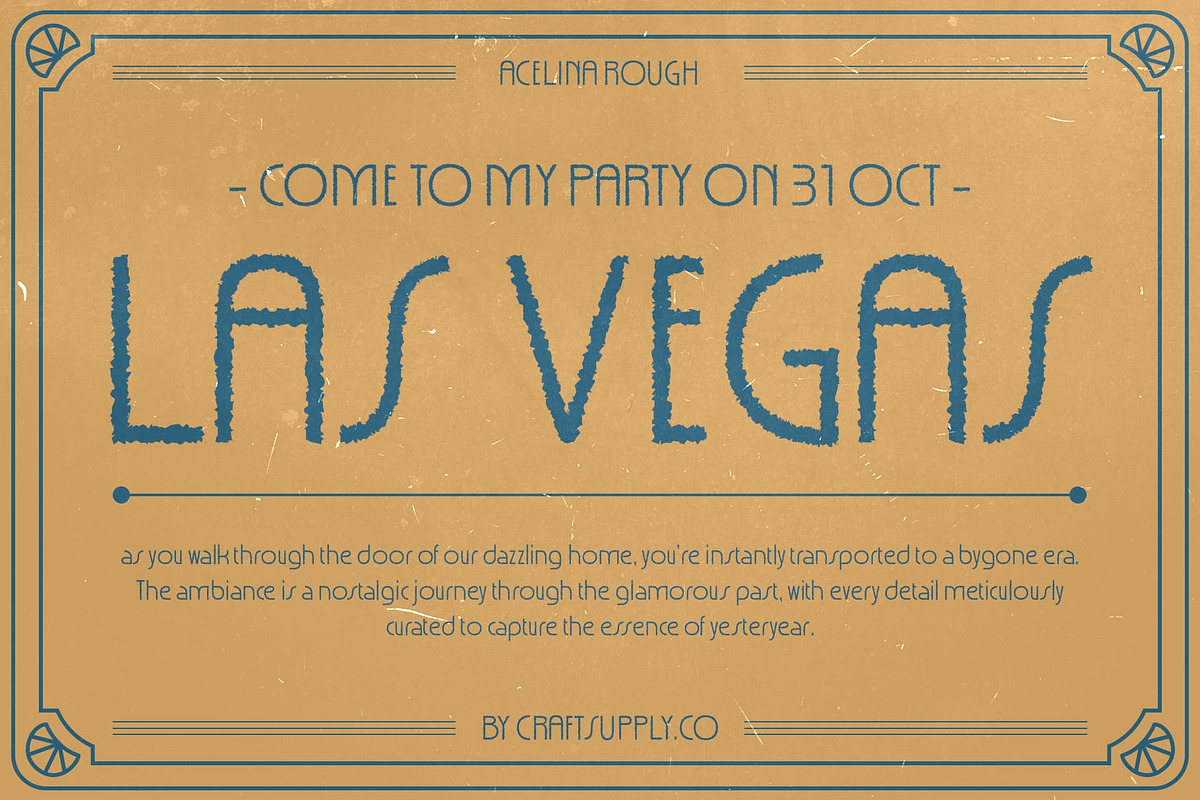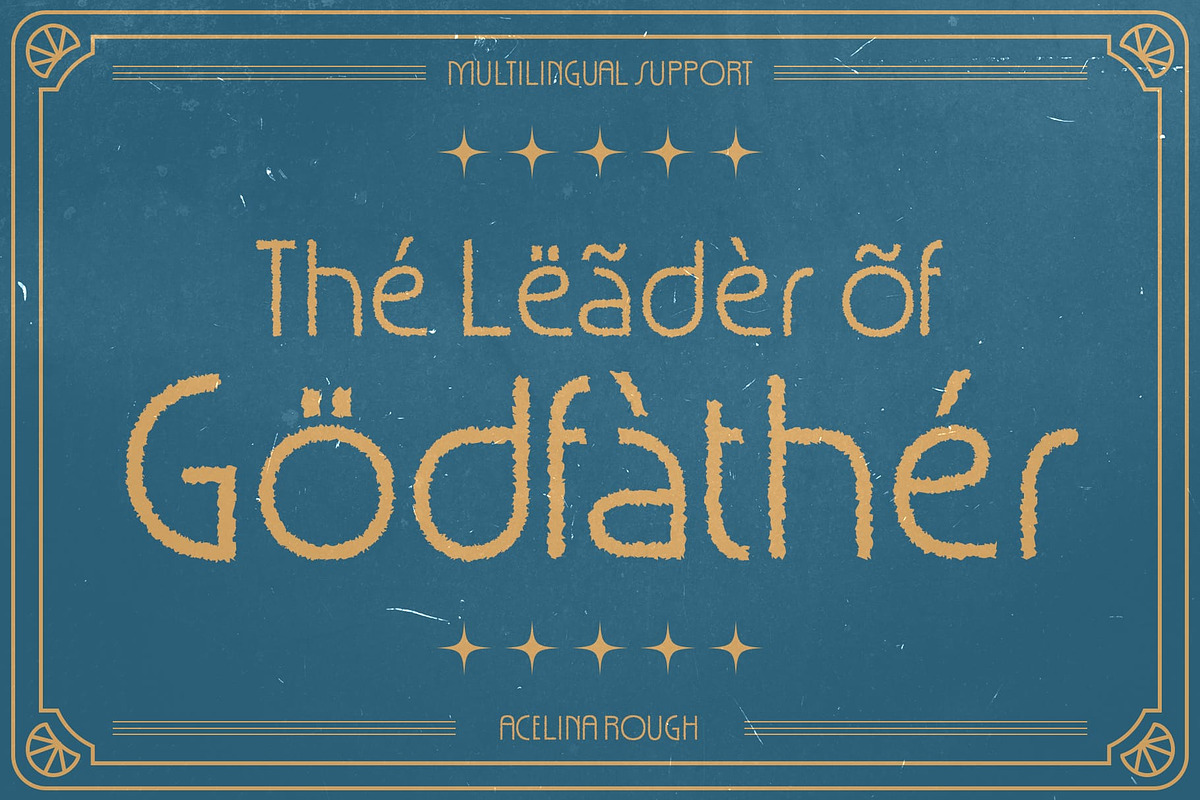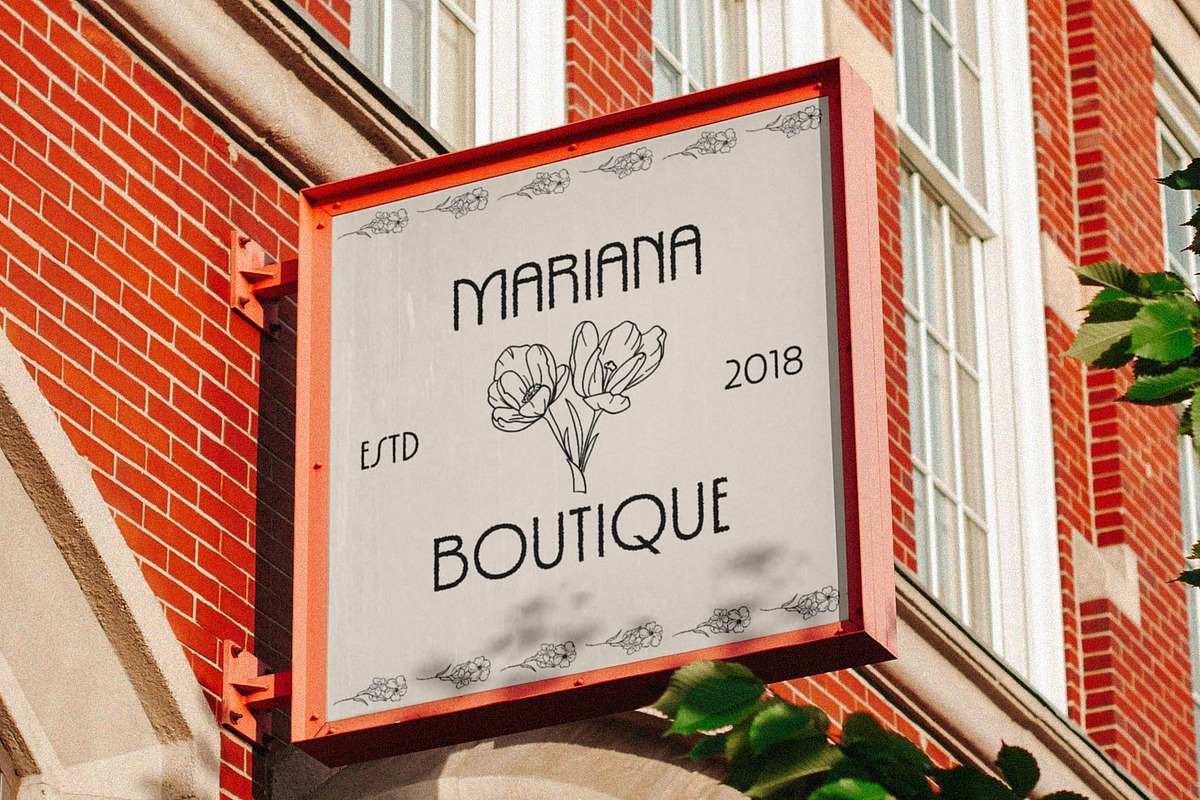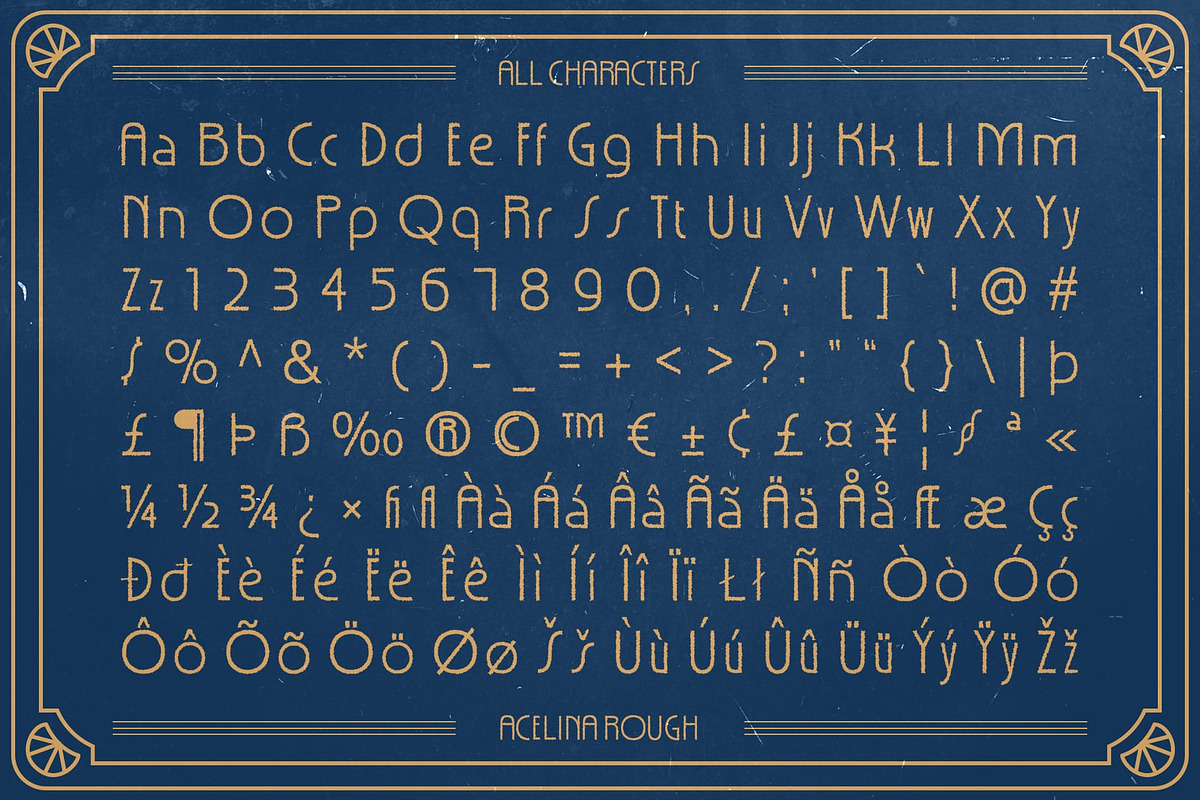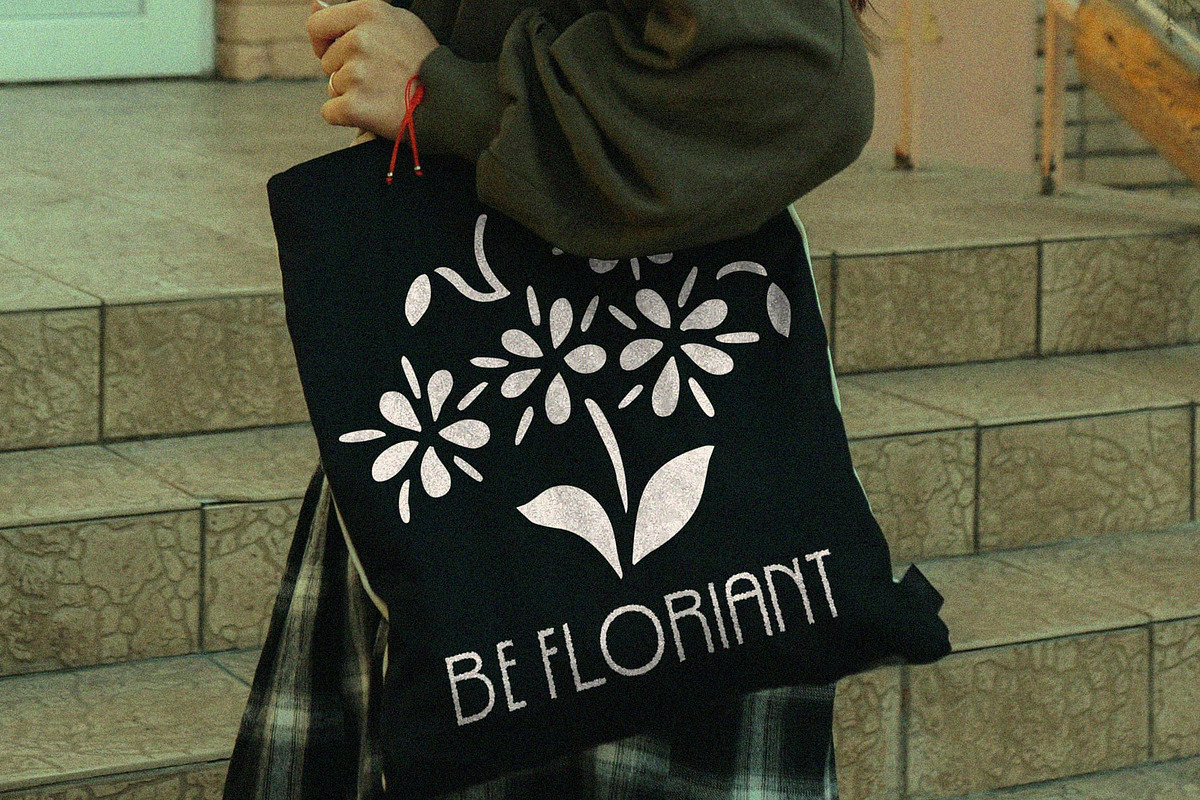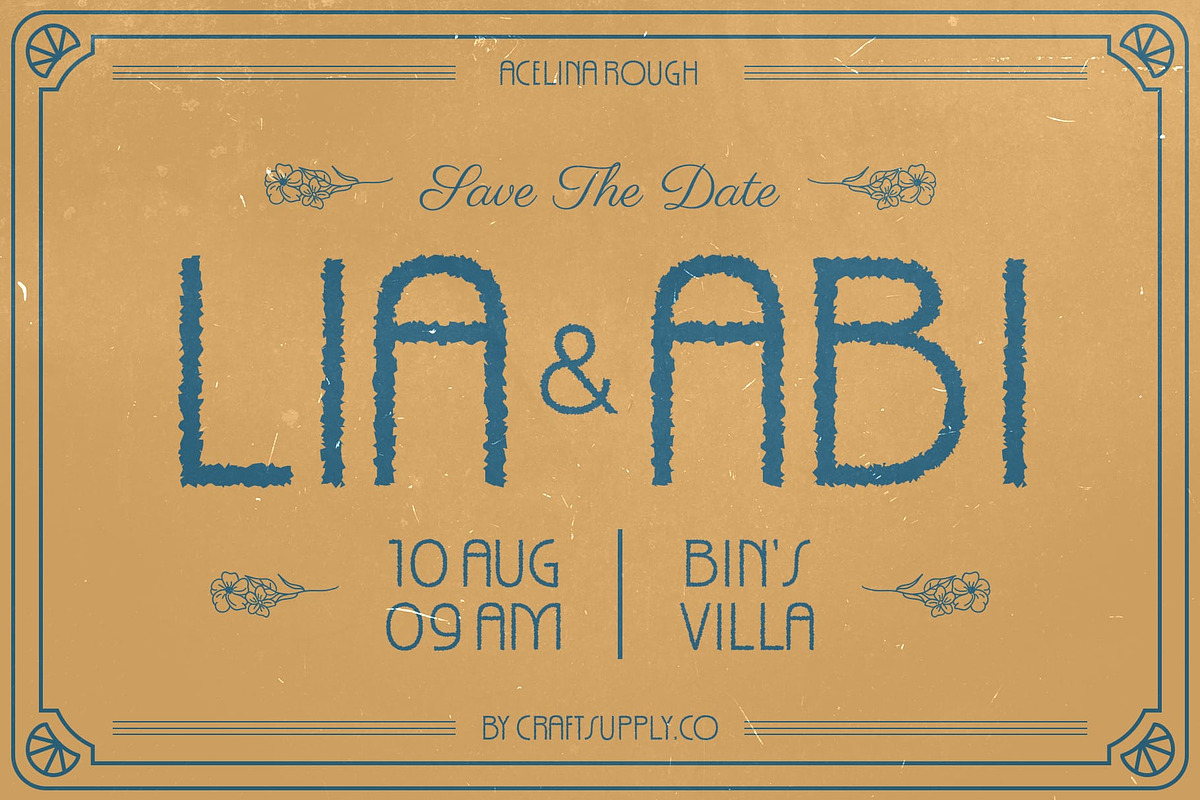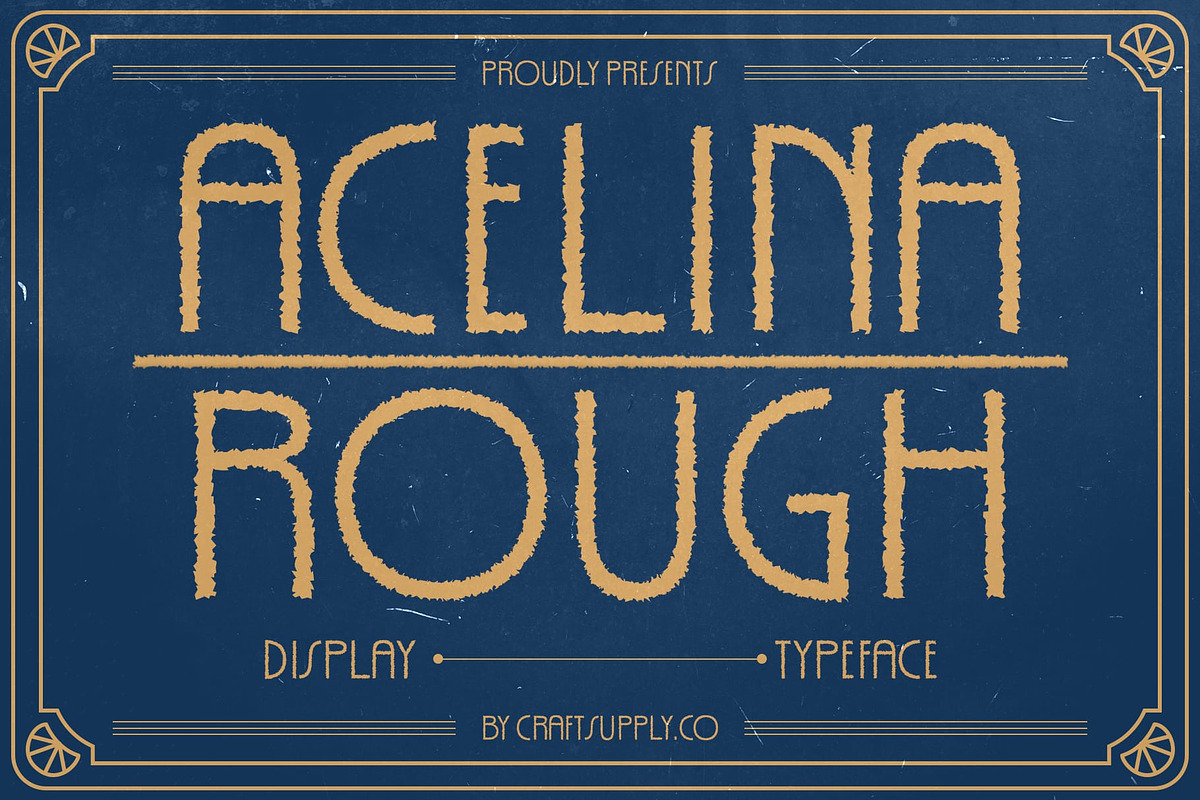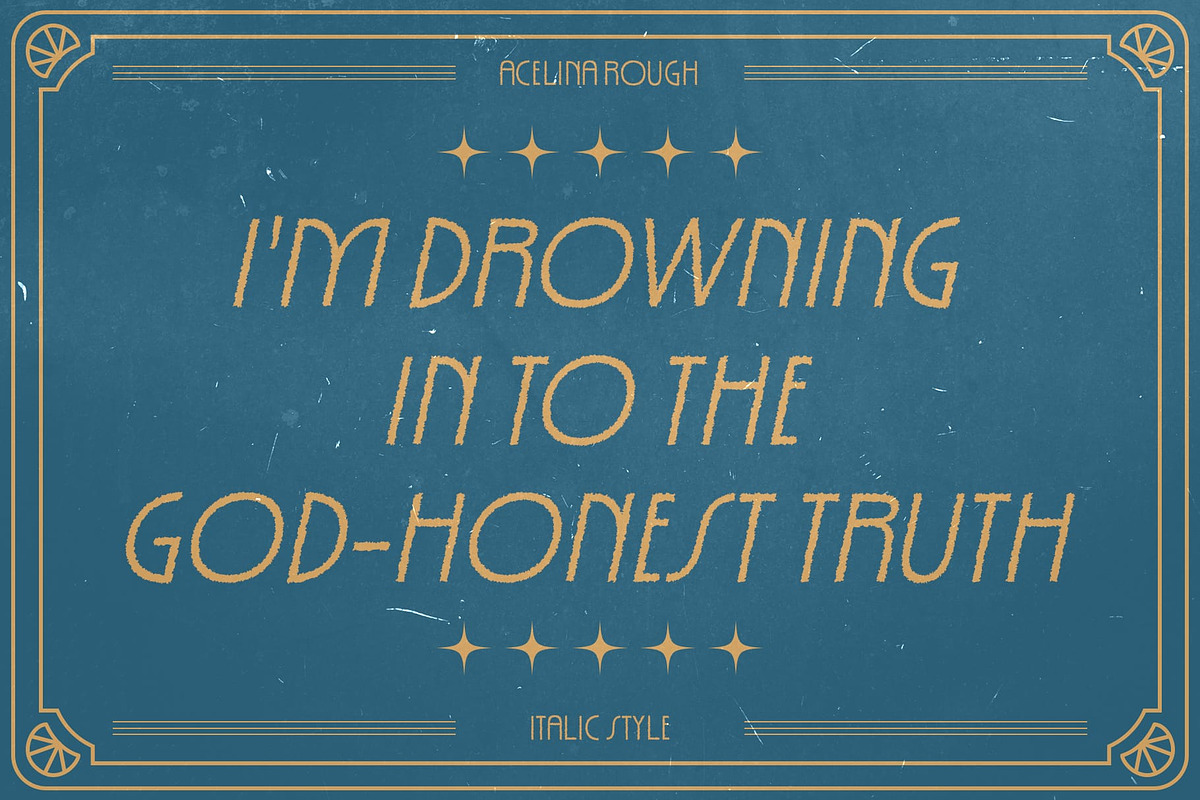
Acelina Rough
Acelina Rough – Modern Sans Serif Font with Geometric Shapes
Clean and Minimalist Aesthetic Acelina Rough is a modern sans serif font that exemplifies geometric simplicity and balanced proportions. Its design focuses on clean lines and basic forms, ensuring a neat and highly readable appearance. This minimalist aesthetic makes it a versatile choice for contemporary designs that prioritize clarity and elegance.
Unique Rough Texture Adding a distinctive twist to its modern form, Acelina Rough incorporates a subtle rough effect. This texture introduces an intriguing contrast between smooth and rugged elements, enhancing the font’s character and uniqueness. The rough effect gives the font a tactile quality, making it stand out in a variety of design contexts.
Ideal for Diverse Design Projects Whether used for branding, editorial layouts, or digital media, Acelina Rough adapts seamlessly to a wide range of applications. Its modern and elegant look is complemented by the added texture, providing a perfect blend of sophistication and personality. This font is designed to make a statement while maintaining a professional and polished appearance.
Versatility and Visual Appeal Acelina Rough’s geometric shapes and rough texture create a visually appealing contrast that captivates viewers. Its versatility allows it to be used in diverse projects, from sleek corporate designs to creative and artistic endeavors. The font’s unique combination of modern aesthetics and textured detail ensures it delivers a contemporary and elegant look with an extra touch of distinctiveness.